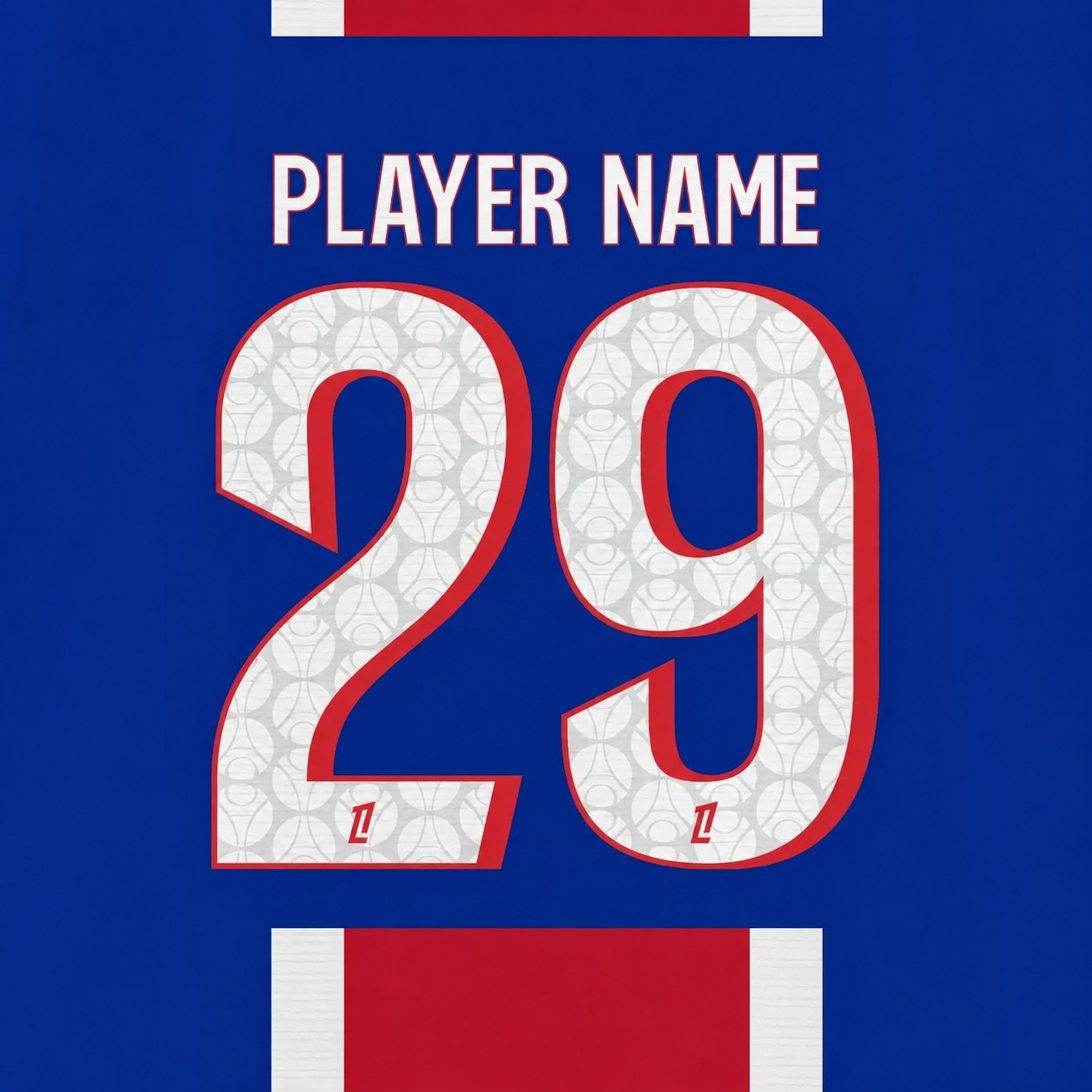
Complete PSG 2026/27 font set — every letter and every number in one kit, in this season’s lettering style, white-and-red colourway as shown.
- Full set included: all letters A–Z + all numbers 0–9, exactly as shown
- Patterned fill with fine detailing, exactly as shown
- Make any name & number combination (e.g. DEMBELE 10) — fits adult and kids jerseys